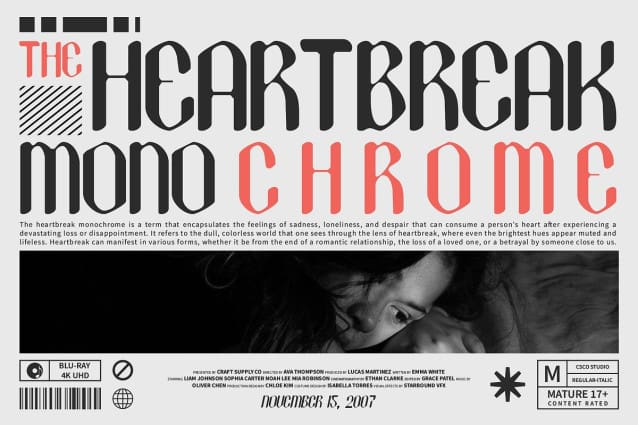
Eighart Blur Font
Eighart Blur Font is a display font that merges tech-inspired design elements with a futuristic aesthetic, enhanced by a blur effect for a sophisticated and advanced look. This font’s innovative style is perfect for creating a cutting-edge impression in any design.
Featuring bold, tech-savvy design elements and a dynamic blur effect, Eighart Blur adds visual dimension and depth to your projects. The blur creates a sense of motion or focus, often used to emphasize design elements in high-tech or digital contexts, making it a versatile choice for modern designs.
Perfect for sci-fi movie posters, user interface design, and technology-focused promotional materials, Eighart Blur brings an avant-garde appearance to your projects. Its futuristic design ensures that your work stands out with a sleek, modern touch, capturing attention and highlighting innovation.
Choose Eighart Blur to elevate your designs with a display font that combines technology-inspired characteristics with a futuristic blur effect. This font is ideal for projects that demand a sophisticated, cutting-edge look, providing a unique and advanced visual appeal.